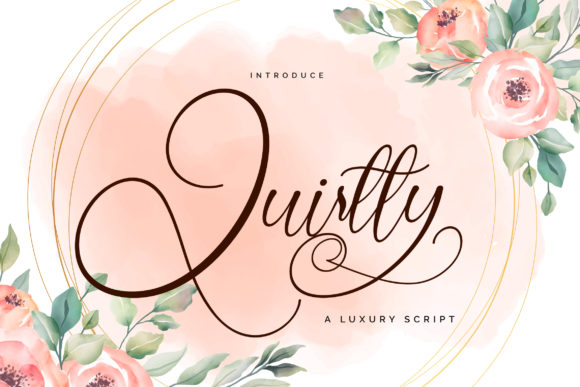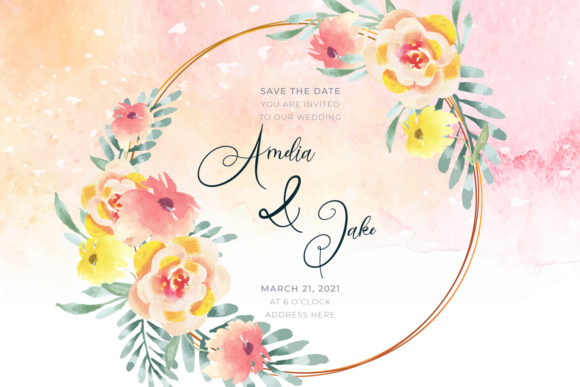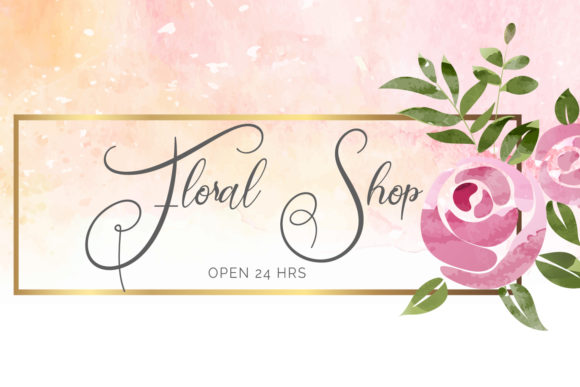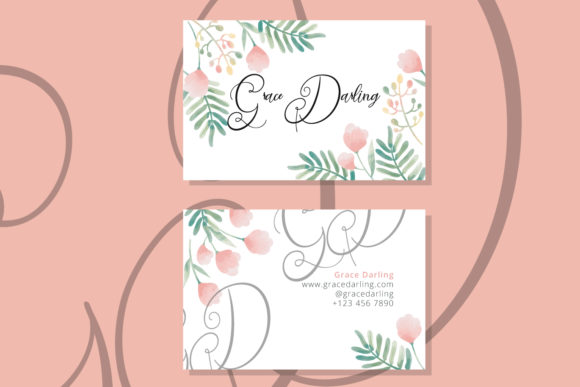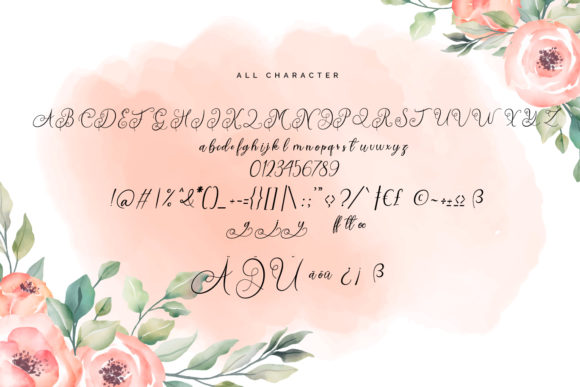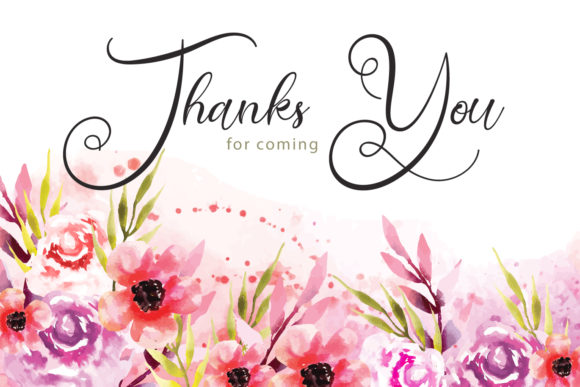
HomeScript FontsQuirtty Font Script Fonts Quirtty Font FacebookXPinterestWhatsApp Quirtty Font Poster 2 Quirtty Font Poster 3 Quirtty Font Poster 4 Quirtty Font Poster 5 Quirtty Font Poster 6 About Quirtty Font Quirtty is an incredibly beautiful script that will easily create standout designs! DOWNLOAD ON CREATIVE FABRICAThis font is sold and delivered by Creative Fabrica. Font Canyon may earn a commission if you buy through this link. People also explored Honeydew Font Brochette Kenord Font Doobam Font Tahiti Sand Font Mornad Font Disco Rendezvous Font Costa Smeralda Script Font Cell Font 270 0 TagsQuirtty Font Previous articleGreen Walk FontNext articleSoniya Font LEAVE A REPLY Cancel reply Comment: Please enter your comment! Name:* Please enter your name here Email:* You have entered an incorrect email address! Please enter your email address here Website: Save my name, email, and website in this browser for the next time I comment. Personal Use Free BD Geminis Personal Use Free Read more about this font Shrag Script Personal Use Free Read more about this font Evensong Hollow Personal Use Free Read more about this font Deco Neue Wilde Personal Use Free Read more about this font BLOG Elegant Wedding Invitation Fonts – Handwritten & Script Fonts Elegant Wedding Invitation Fonts Your wedding day is one of the most important moments of your life, and every detail matters—including your invitation design. Our... Using Fonts in Digital Marketing: Tips to Strengthen Your Brand Identity Transform Your Website: Elevate Your Typography with 7 Best Web Font Generators How to Install and Use Fonts on Windows, macOS, and Web Projects